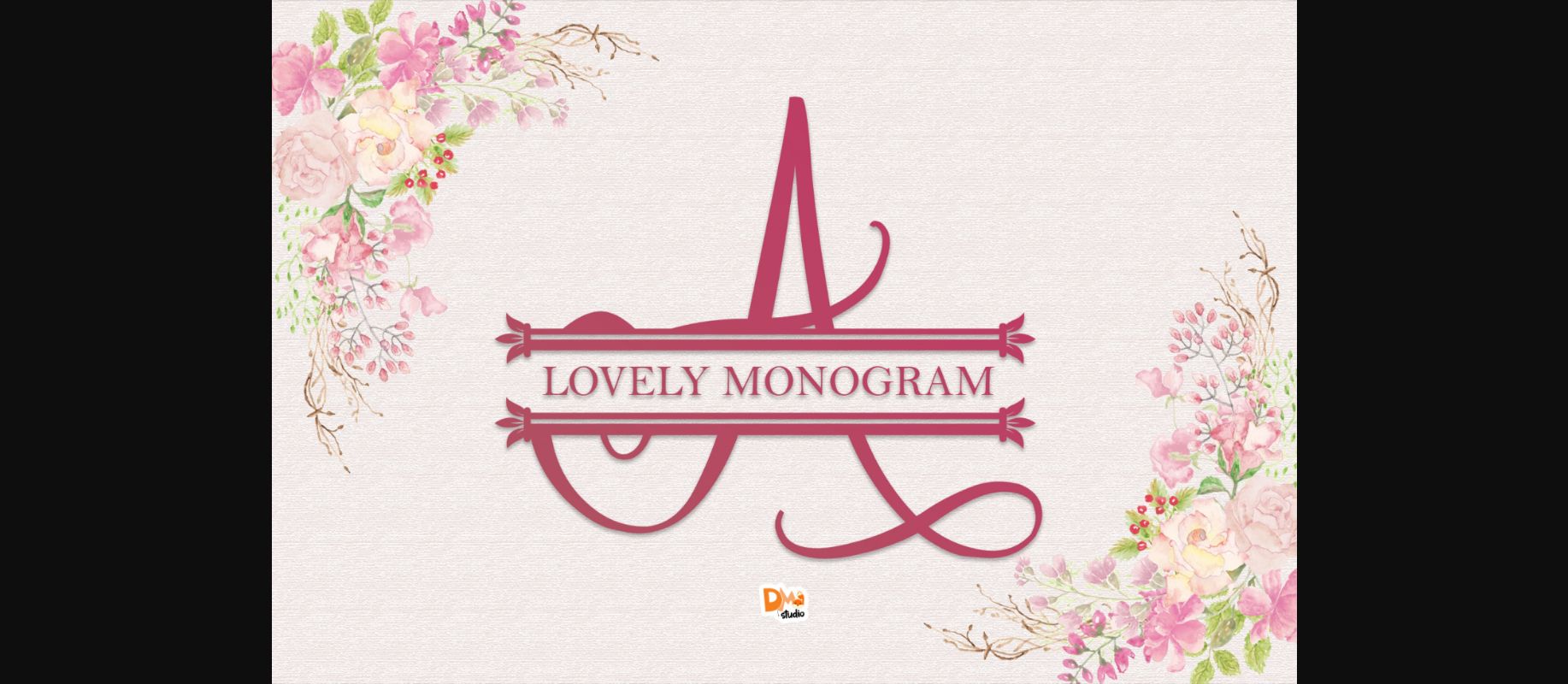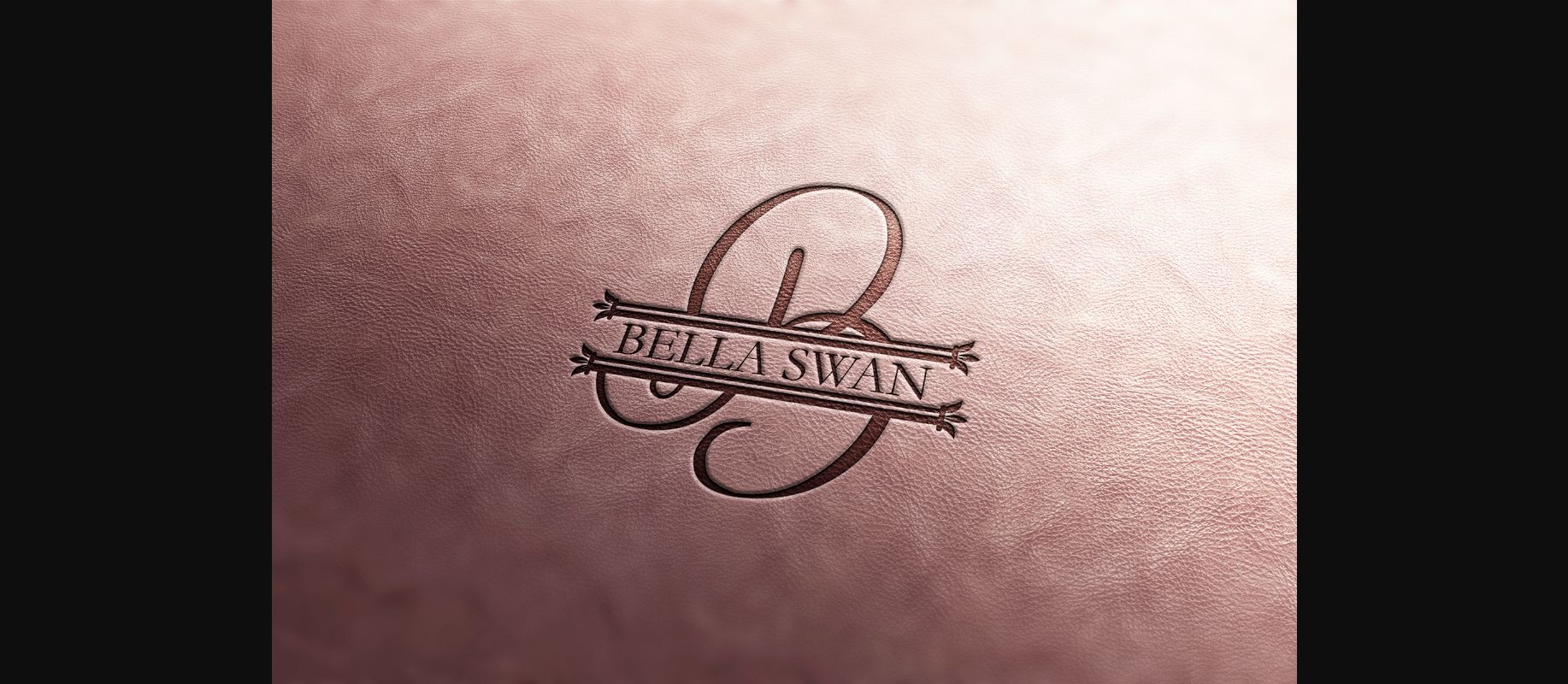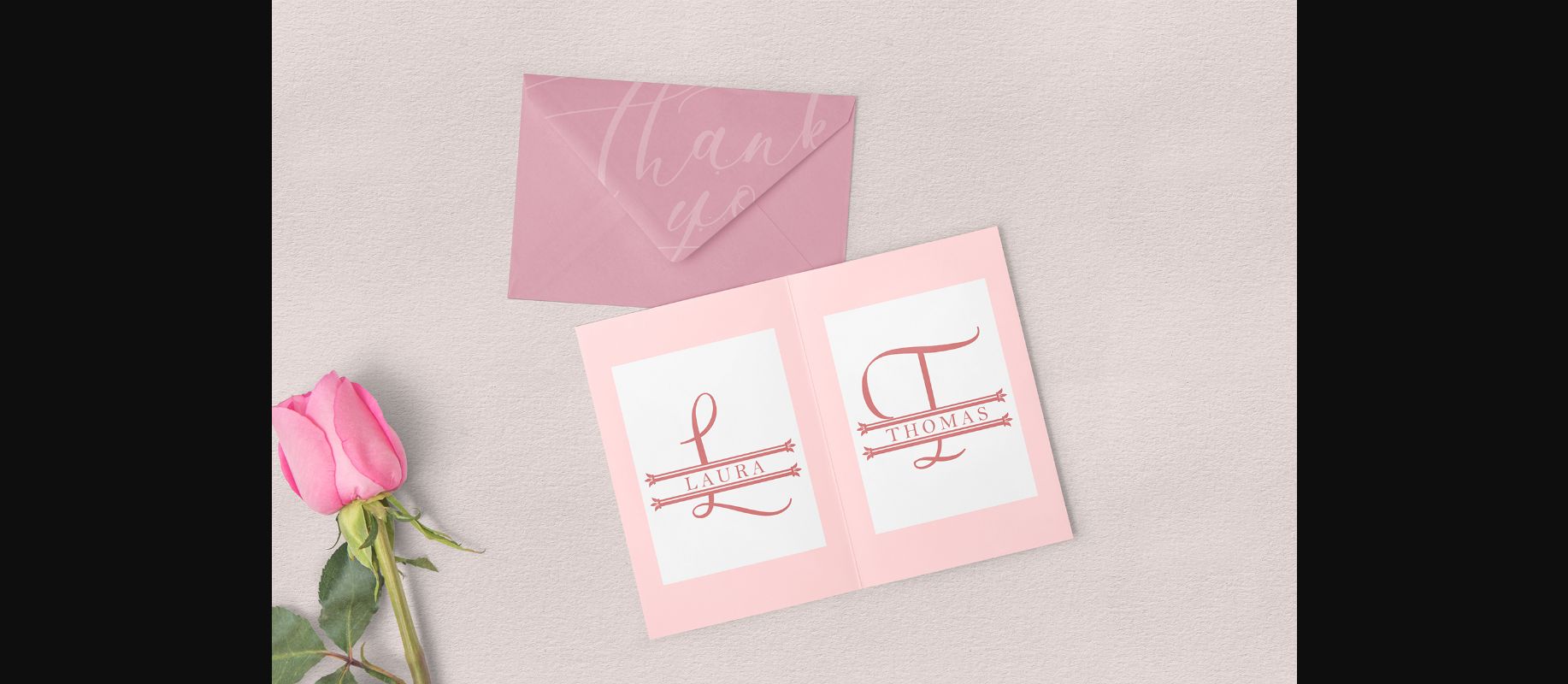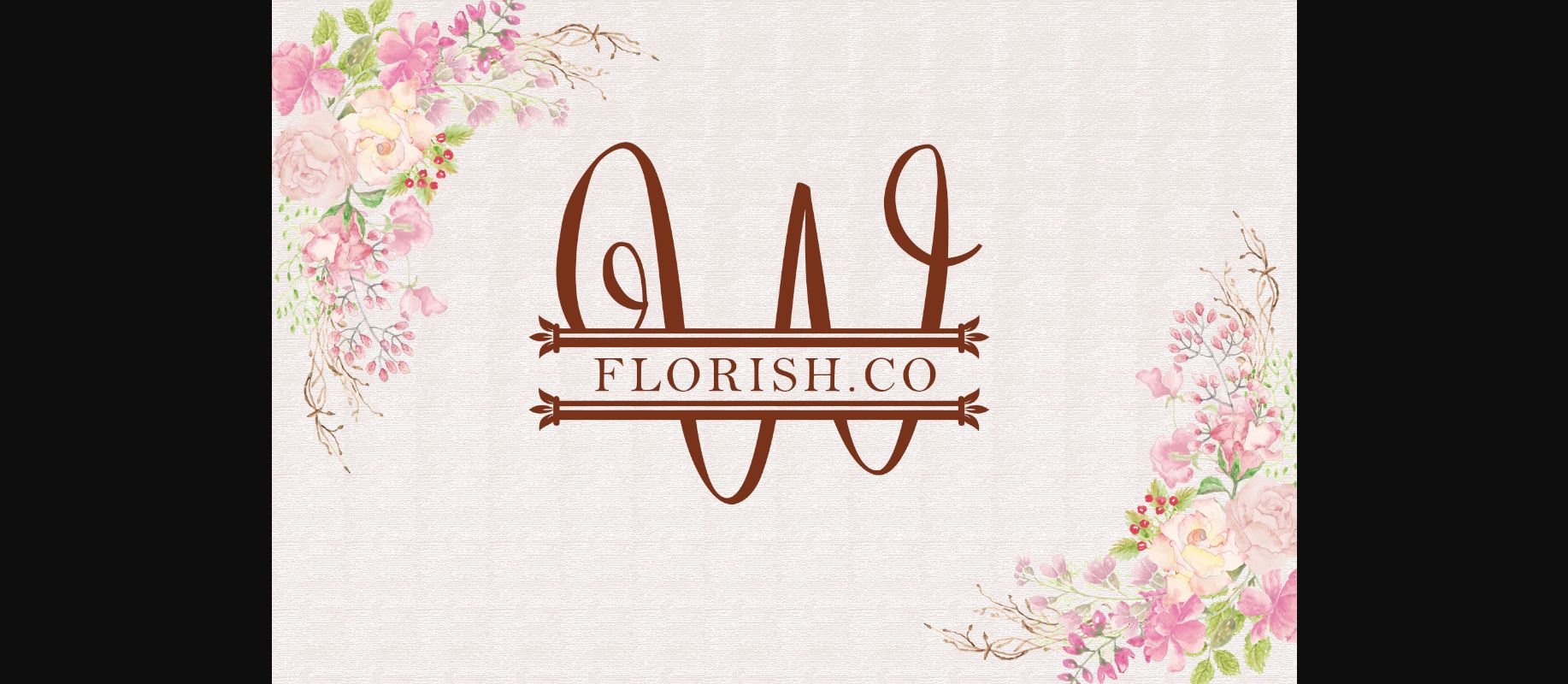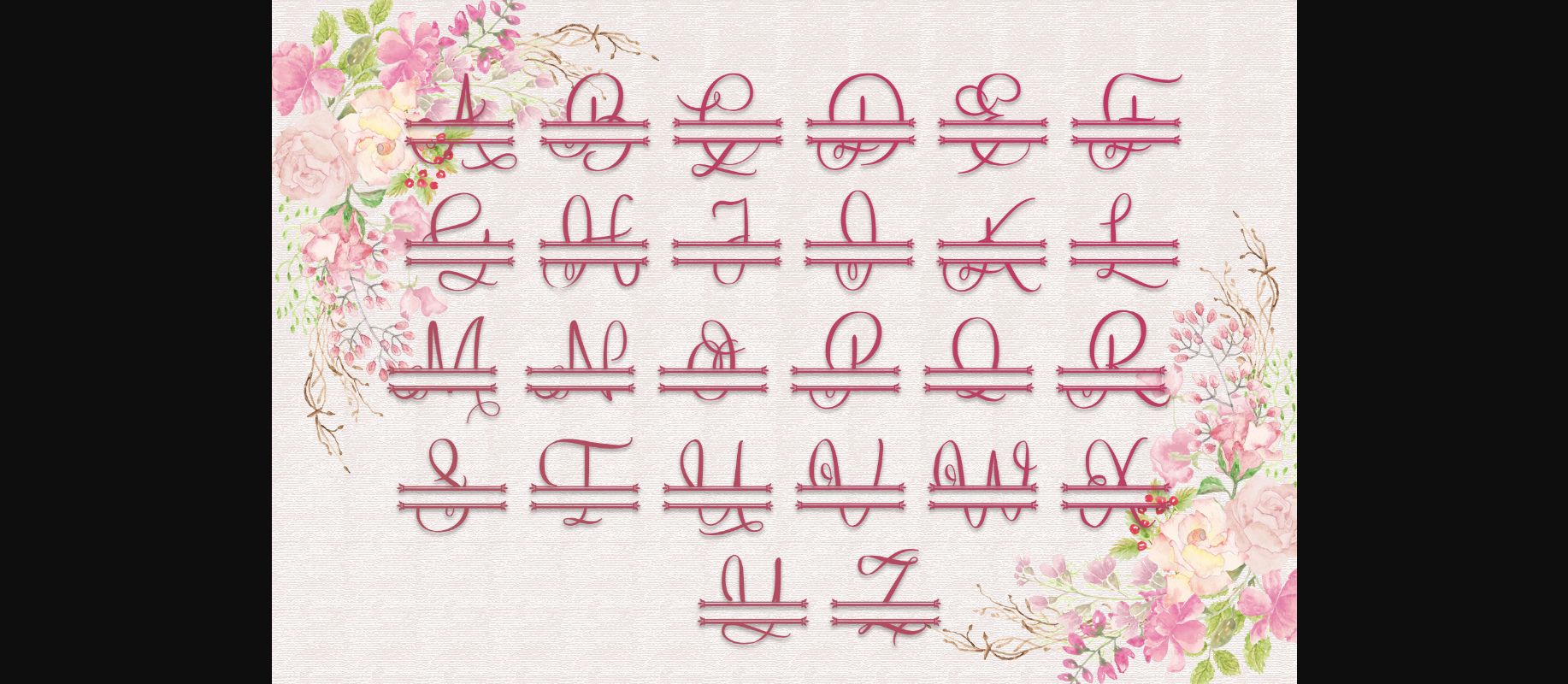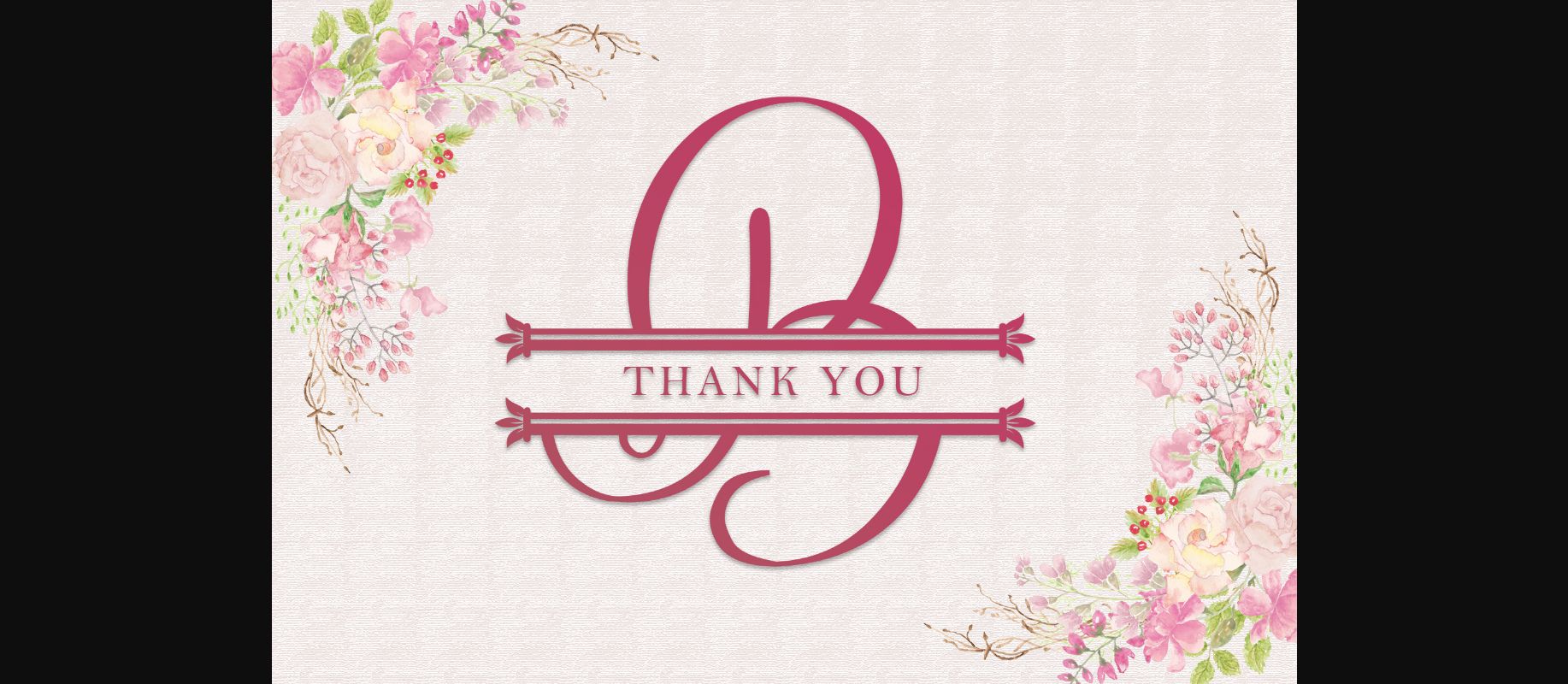
Lovely Monogram Font
About Lovely Monogram Font
Lovely Monogram is a delicate and elegant decorative font. Fall in love with its authentic feel and use it to create gorgeous wedding invitations, beautiful stationary art, eye-catching social media posts, and cute greeting cards.